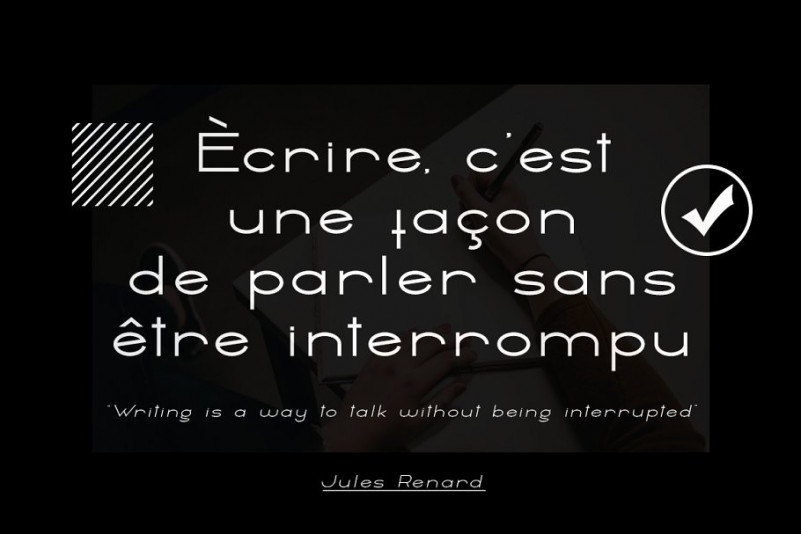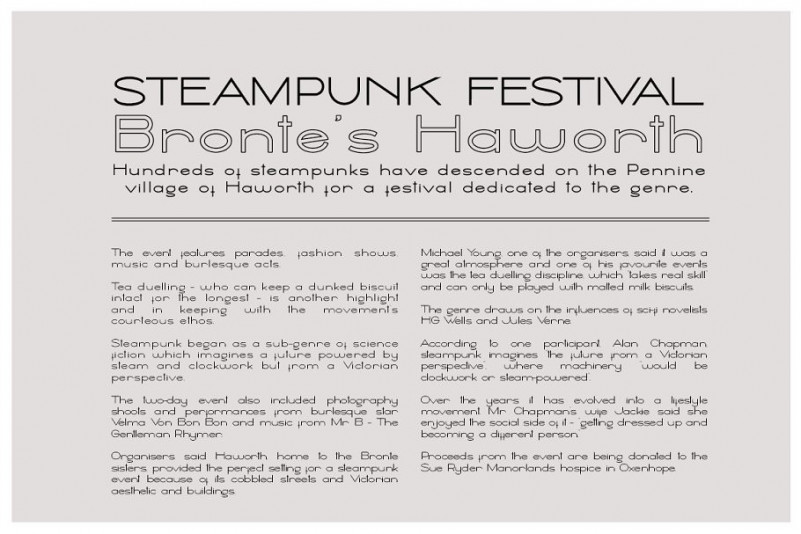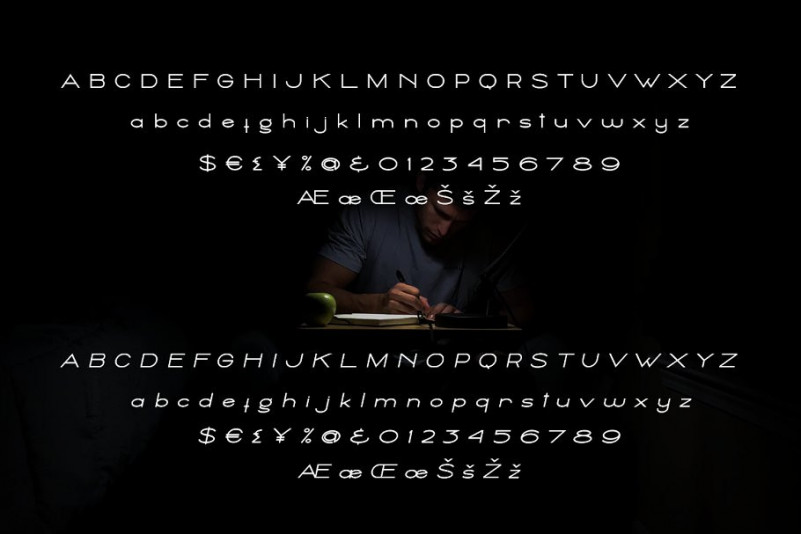
Ballado – Geometric Sans Font
This is a modern, simple and clean monolinear sans-serif typeface. This typeface bridges the gap between old-school and contemporary type thanks to consistency throughout all letterforms and being crafted with attention to detail and proportion. Introducing Ballado Font Family! Strong capitals and a smooth, open lowercase are effective in a variety of applications. The geometric, near-monoline construction lends a classic durability, tempered by softened edges and vibrant shapes. Version Including : Thin, Regular, Bold and Outline also in slant (Italic) along with a richer and fuller Heavy weight. Every letter has been redrawn and refined, with improved kerning and expanded language support.